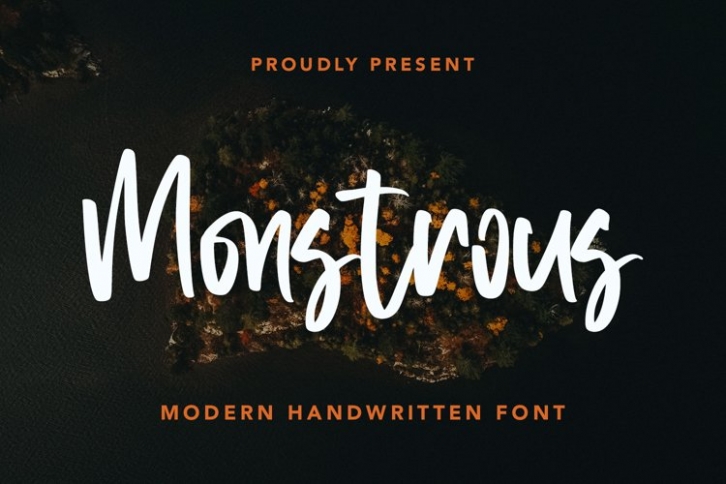
Monstrous is a beautiful font that was designed by plusstore. It's a great choice for designers and creatives who need such a font. It was released on November 27, 2021 and the file size is 4.34 MB. Monstrous may give a more youthful, expressive and casual look to your project. It is a very beautiful, refined, elegant, and high-quality font.